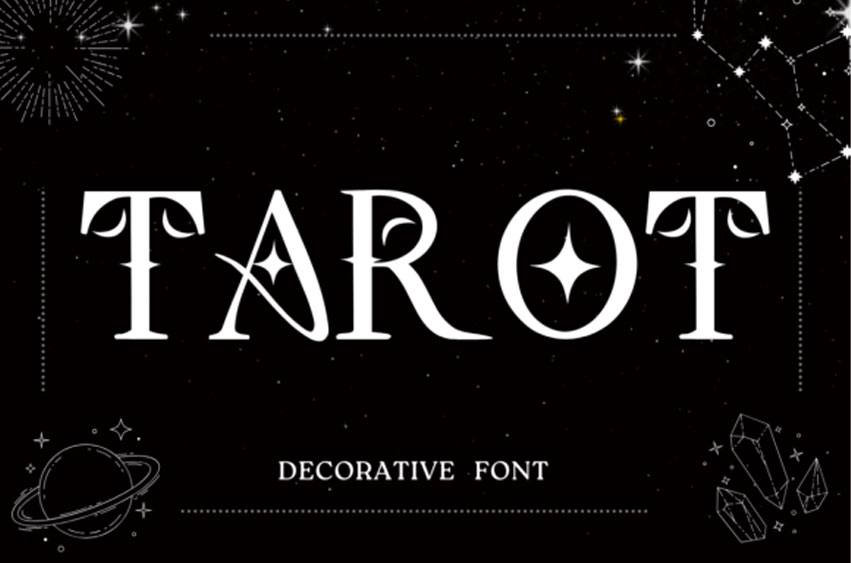
Tarot Decorative Font
Tarot Decorative Font is a decorative font featuring elegant, playful accents like stars and half moons, giving it a mystical, celestial vibe.
Perfect for designs that need a touch of magic and whimsy.